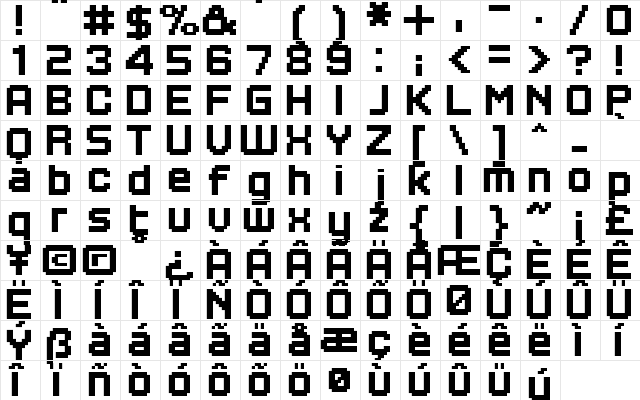
FFF Calypso Extended Regular
Design Context for FFF Calypso Extended Typeface
FFF Calypso Extended is a composed and adaptable typeface that performs quietly and consistently across a wide range of design contexts.